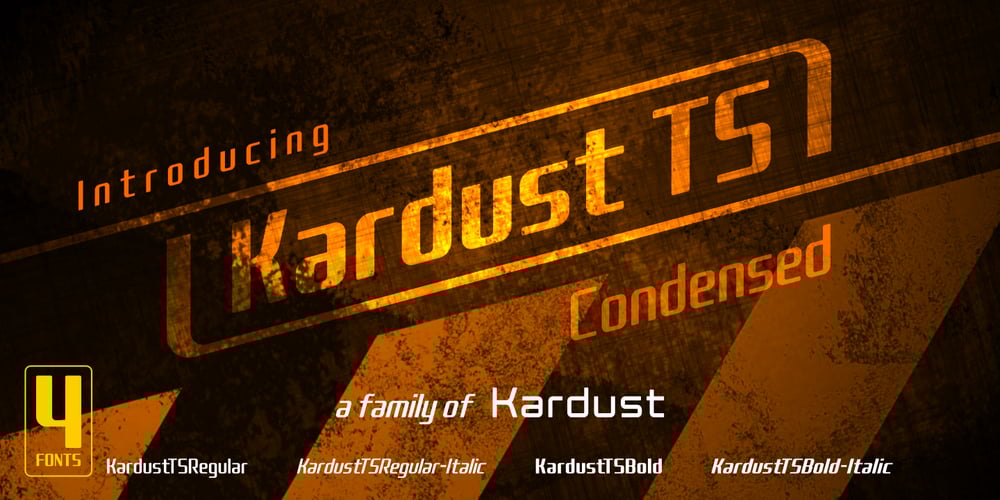
Kardust TS Condensed
Kardust TS Condensed font
Kardust TS Condensed Font Family was designed by Anthonie Van Hayu and published by ARToni. Kardust TS Condensed contains 4 styles and family package options. Kardust TS is a part of Kardust family, which is born from it skeleton to suit Transportation and Sport, but it will suitable for any purpose.